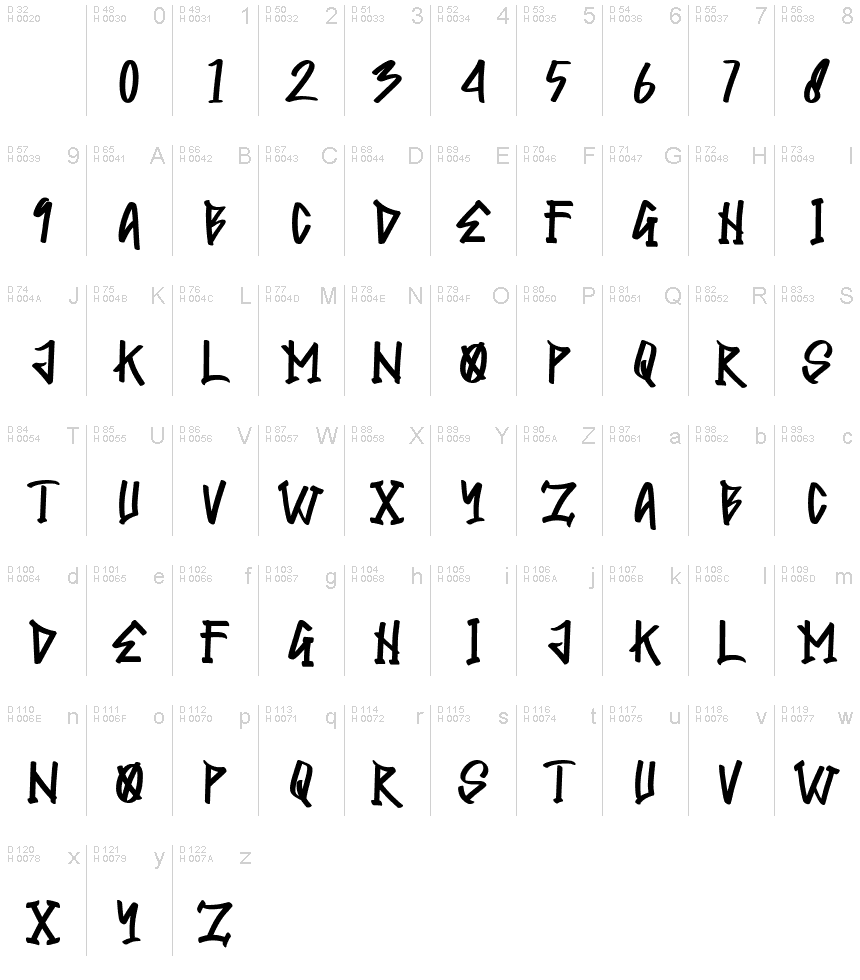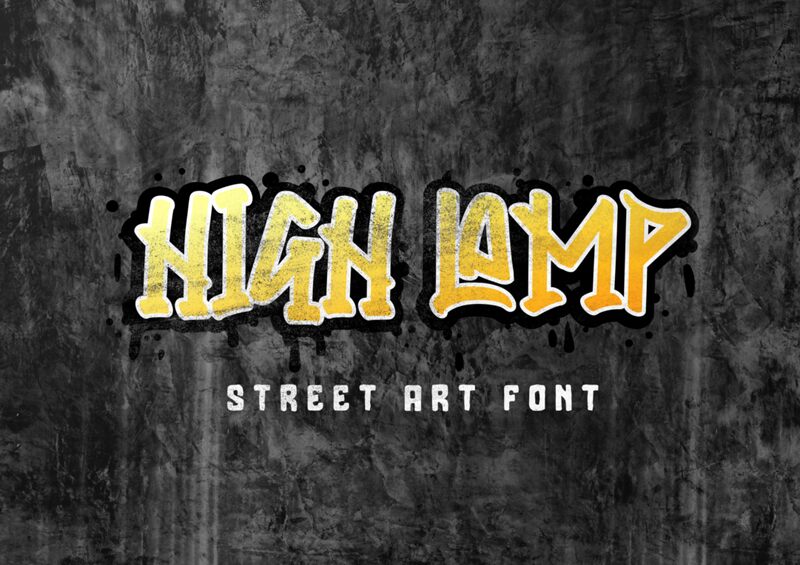
HIGH LAMP
HIGH LAMP is a striking graffiti font that will add urban edge to your designs. Created by nomlimofont, this font boasts bold lines and an authentic street art feel. The semi-bold typeface is perfect for headlines and titles, while the wide width makes it easy to read even from a distance. Use HIGH LAMP to create posters, flyers, and album covers that demand attention. It's also suitable for branding projects that want to convey an edgy vibe, such as skateboarding or hip-hop apparel. Let your creativity run wild with HIGH LAMP!
Nomlimo